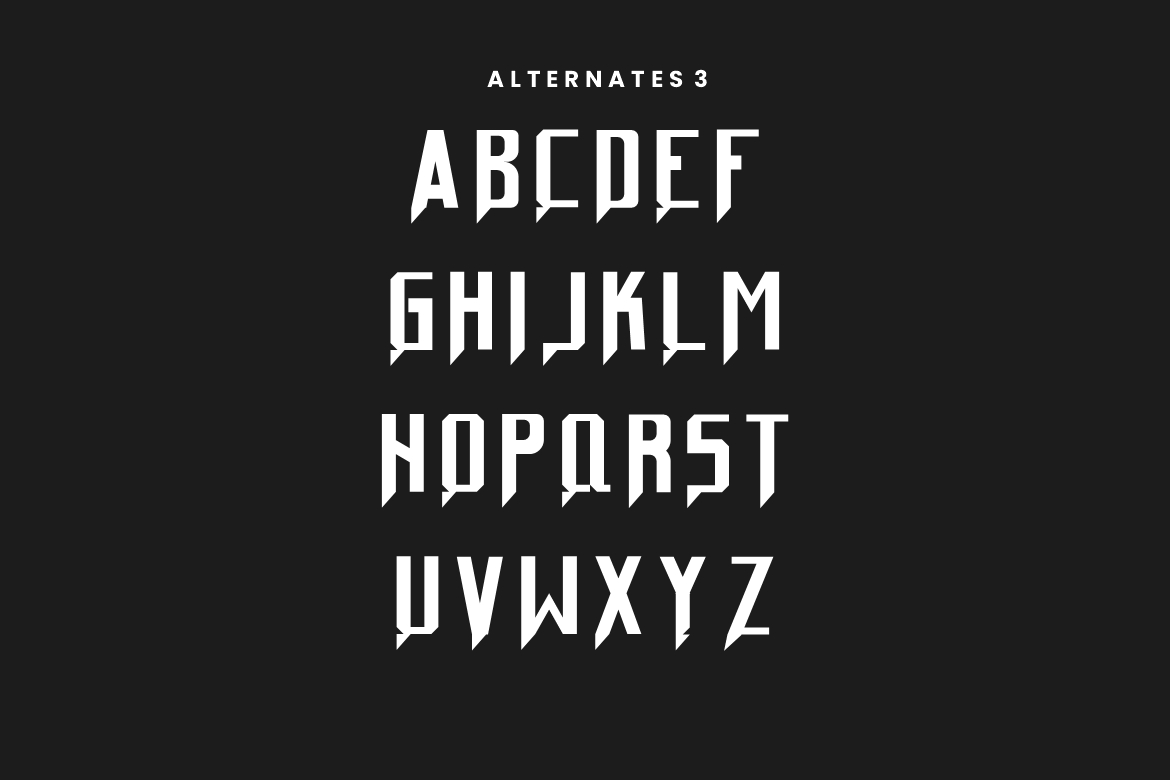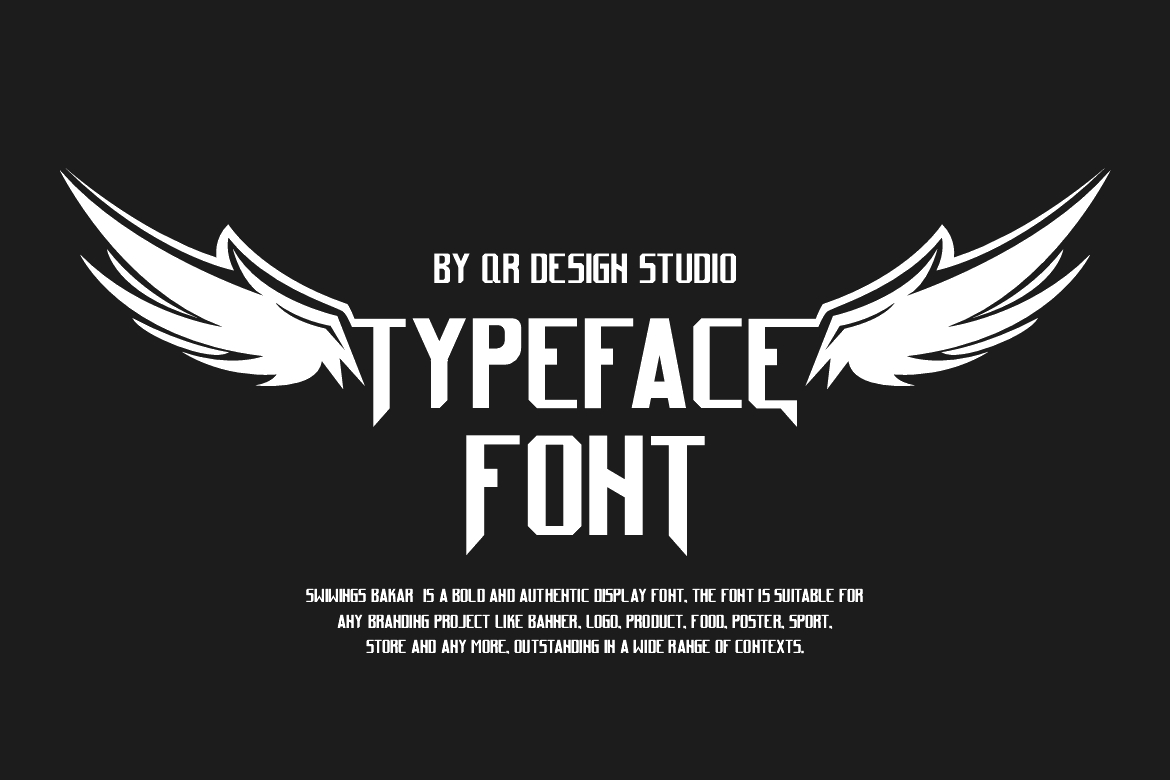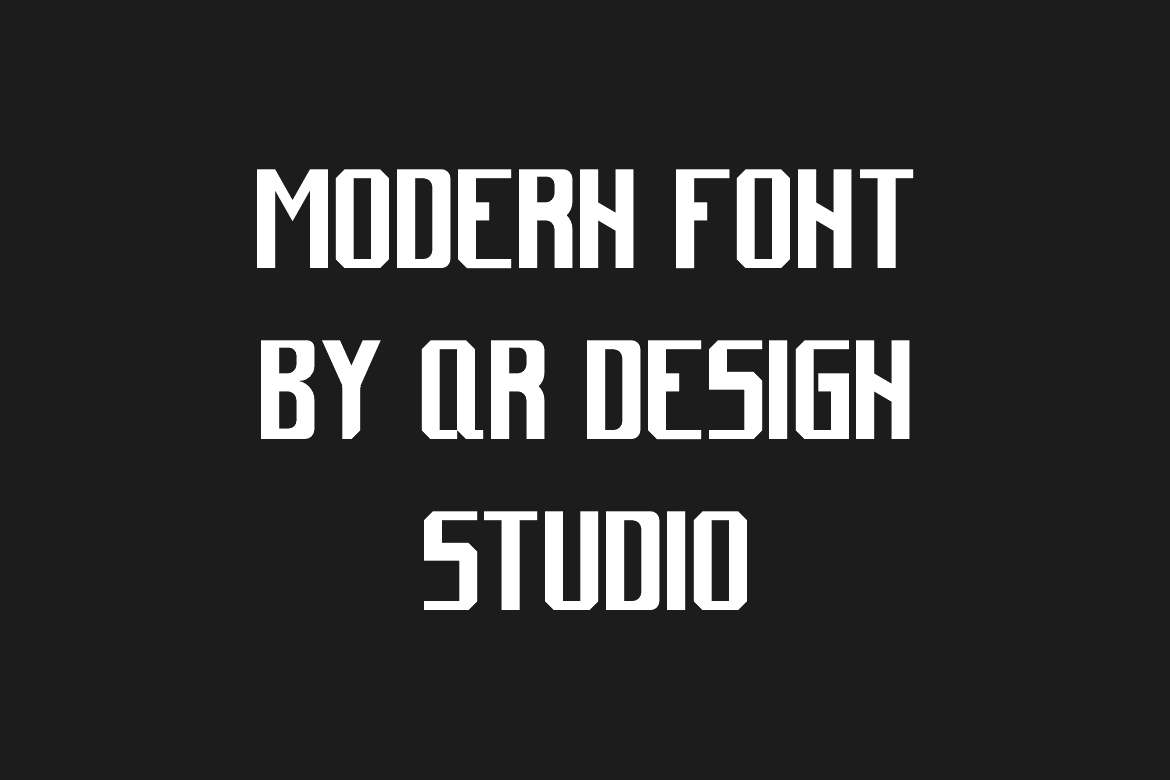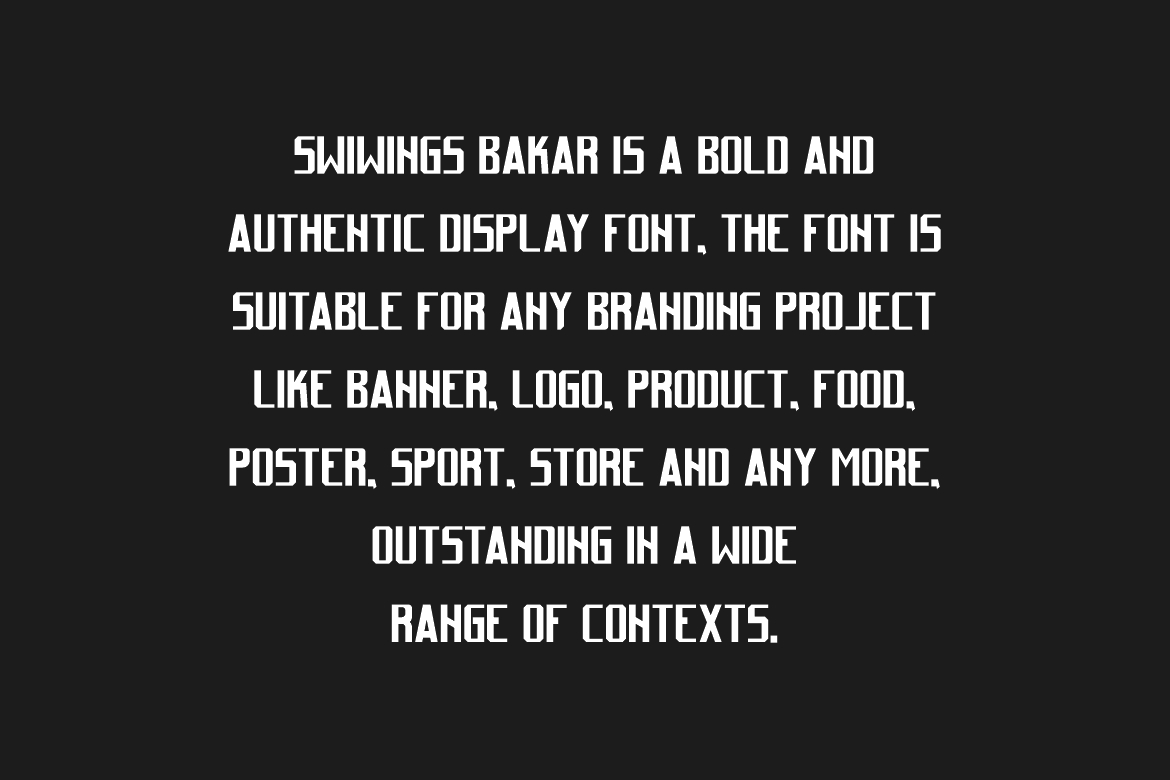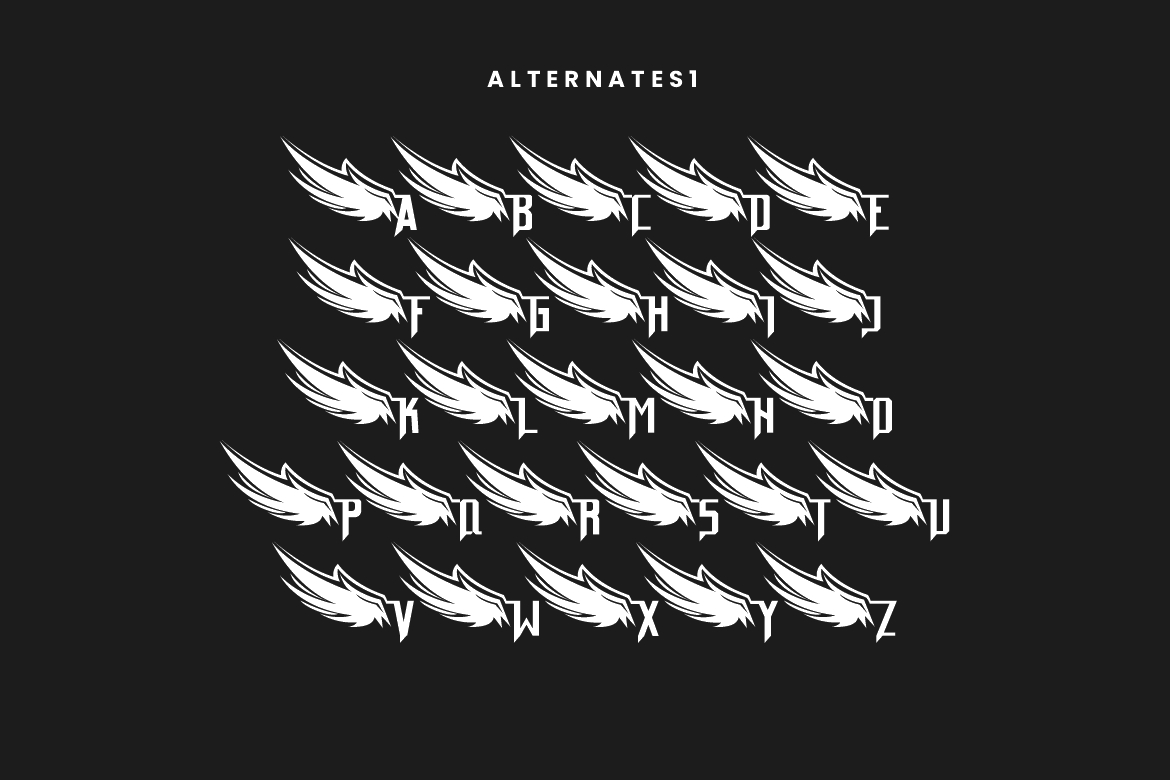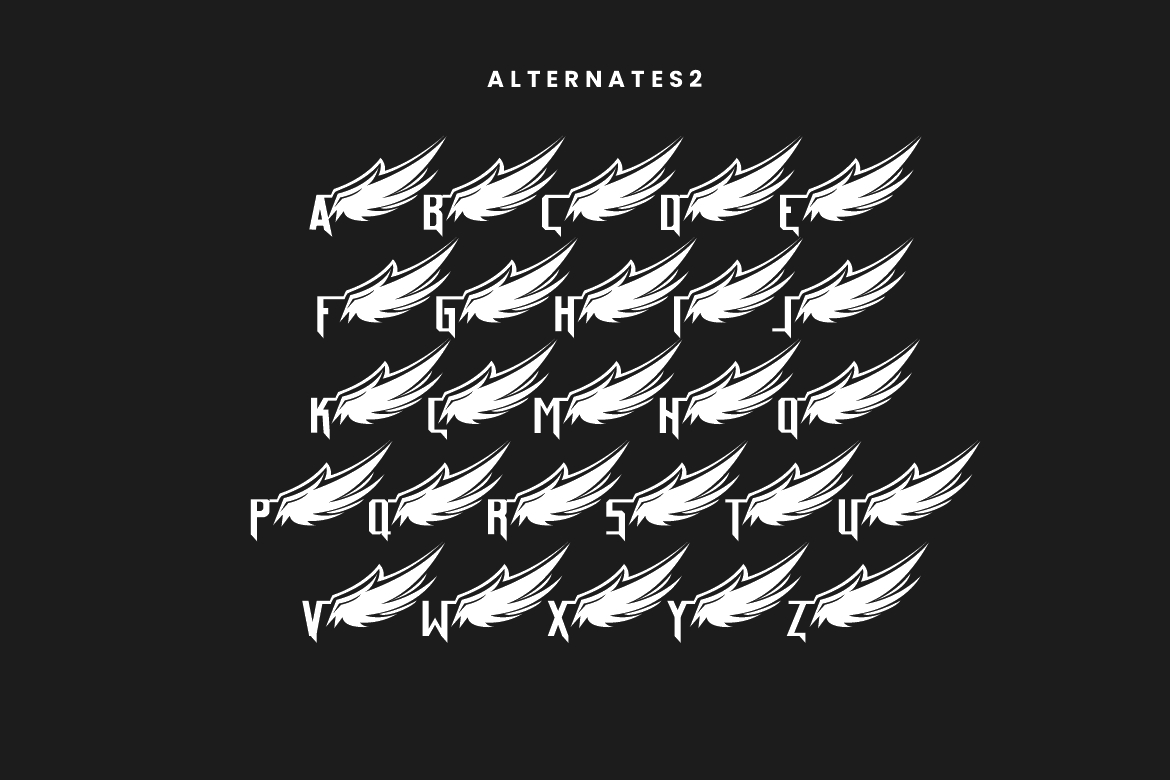
Swiwings Bakar Font
About Swiwings Bakar Font
Swiwings Bakar is a bold and thick lettered blackletter font. Add it confidently to your projects, and you will love the results.